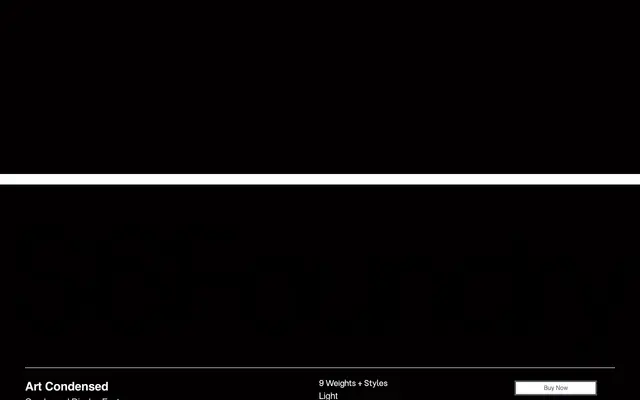
Arto Condensed
A narrow display typeface with tall proportions and sharp detailing, built for posters, editorial headlines and space-constrained typographic work.
Arto Condensed offers five weights from Light to Bold, each sharing the same compressed construction that lets large text blocks occupy minimal horizontal space without sacrificing legibility. Carefully balanced counters and disciplined proportions keep the letterforms readable at scale, while clean transitions give the family a contemporary, graphic tone. The range suits posters, packaging, branding and motion graphics where a strong vertical rhythm is required.
A narrow display typeface with tall proportions and tightly controlled spacing, explicitly designed for posters, editorial headlines and branding rather than extended text. Its compressed construction and sharp detailing place it firmly in the condensed display category.